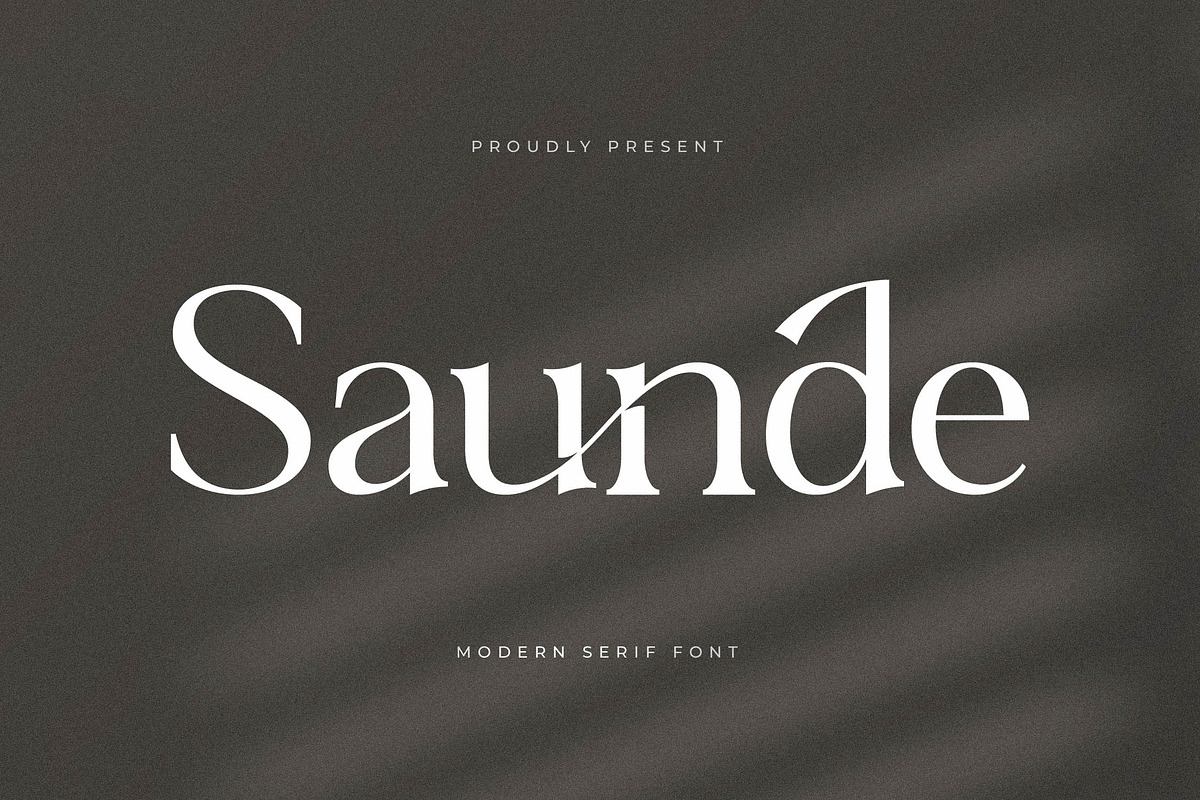
Saunde Modern Serif Font Free Download
Saunde Modern Serif Font Free Download is a sleek and sophisticated typeface that blends timeless serif structure with a fresh, contemporary twist. With its high-contrast strokes, elegant curves, and sharp details, this font is perfect for branding, editorial layouts, fashion lookbooks, packaging, and upscale digital content. It’s designed to command attention while maintaining a refined, professional feel.
Saunde is especially powerful in headlines and logos, where its stylish personality can truly shine. It adds a layer of class and clarity to any design, making it a go-to choice for creatives aiming for a modern luxury aesthetic.